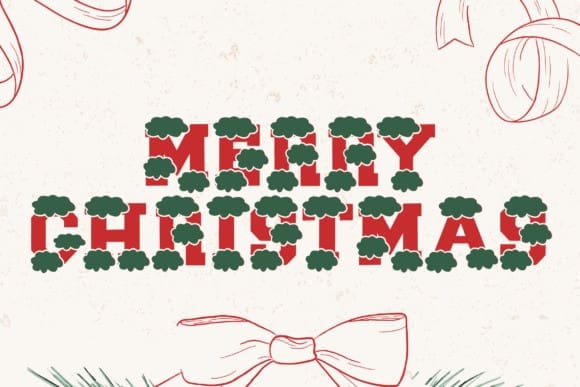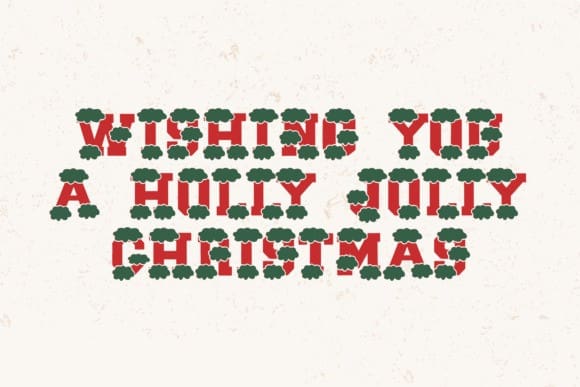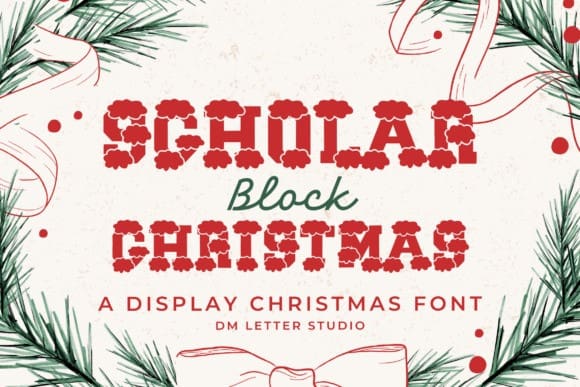
Scholar Block Christmas Font is a bold, all-caps Christmas varsity font that blends athletic letterforms with seasonal joy. Designed to bring school spirit and holiday cheer together, this font features classic varsity shapes touched with subtle winter elements like snow-tipped serifs, playful sparkles, and cozy, festive flair. It’s the perfect choice for holiday sportswear, Christmas party posters, printable cards, classroom decor, or social media posts with a varsity vibe.
Right from the first letter, Scholar Block Christmas captures the essence of festive energy mixed with strong varsity presence. Whether you’re designing ugly sweater team shirts, Christmas event flyers, or North Pole-themed logos, this typeface adds a perfect balance of nostalgia and celebration. It keeps the boldness of school sports fonts while layering in lighthearted holiday details that keep things warm and joyful.
Use it for kids’ Christmas events, printable teacher resources, winter-themed branding, or Cricut/Silhouette holiday projects. The letters stand strong on their own or paired with decorative graphics and ornaments. Ideal for school mascots in Santa hats, varsity gift tags, or classroom bulletin boards, this font adds a touch of holiday fun to any bold design.